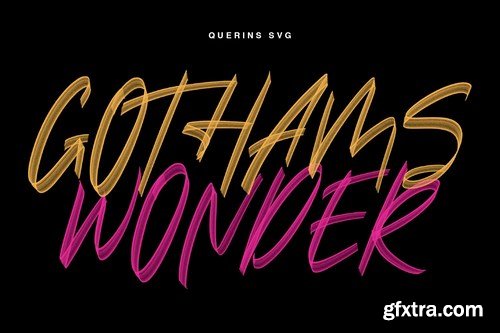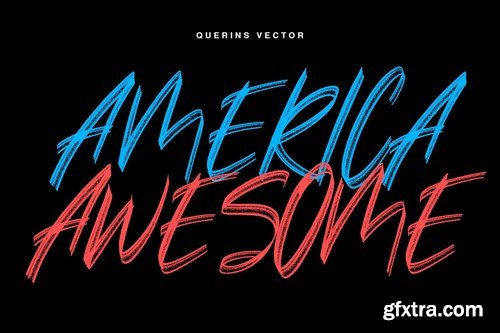
Give your designs an authentic brush handcrafted feel. "Querins" is perfectly suited to signature, stationery, logo, typography quotes, magazine or book cover, website header, flyer, clothing, branding, packaging design and more.